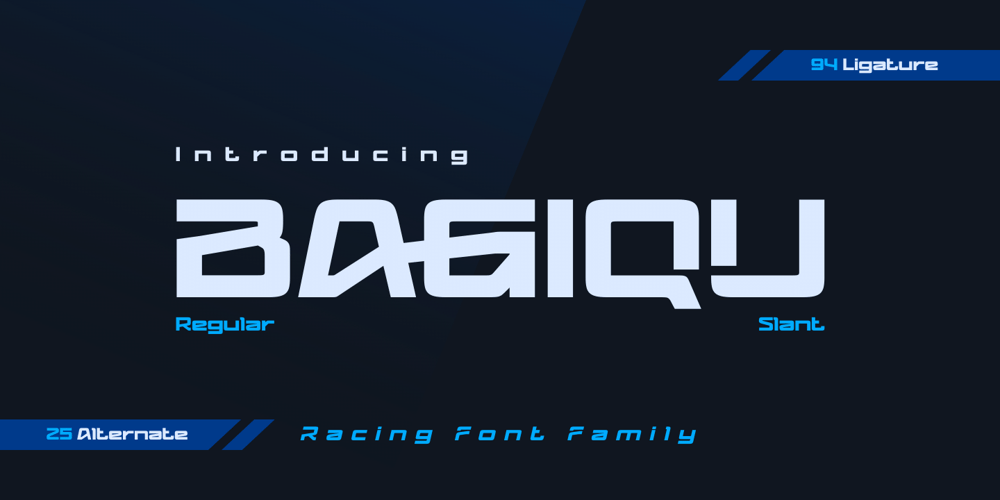
Bagiqu
Bagiqu font
Bagiqu Font Family was designed by Rozikan and published by Twinletter. Bagiqu contains 2 styles and family package options. Bagiqu is a sporty Sans Serif font. Designed for any purpose you can use it to create a stunning design. The Bagiqu font is ready for your big projects and for the best results of your work. This font is suitable for Logo Design, Poster Design, Signature Design, Branding, and More. You can also use it on social media like a logo etc.This font has 25 alternates and 94 ligatures for all letters and 2 styles, making it a versatile tool for creating originality for your various design needs. You Can Create Professional Quality Typography With These Fonts in Your Artwork or Use It For Personal Projects!What’s Included :- All glyphs Iso Latin 1- Alternate, Ligature- Simple installations- We highly recommend using a program that supports OpenType features and Glyphs panels like many Adobe apps and Corel Draw so that you can see and access all Glyph variations.- PUA Encoded Characters – Fully accessible without additional design software.- Fonts include Multilingual support